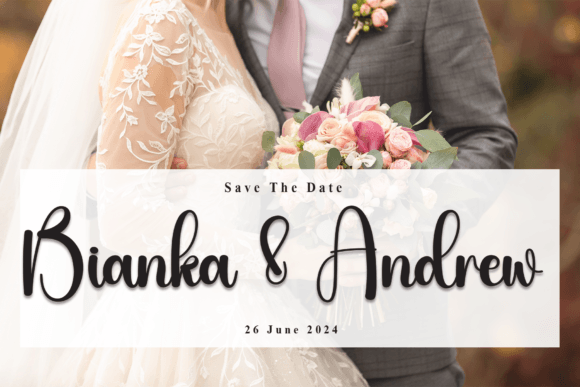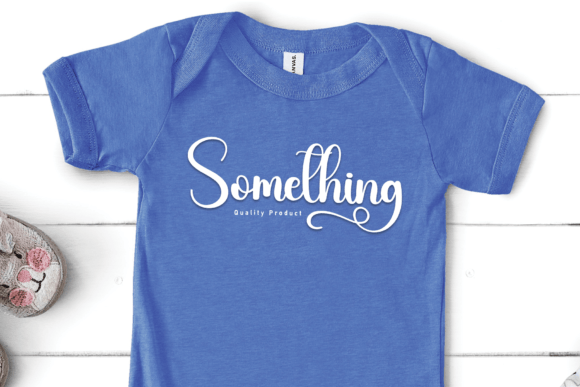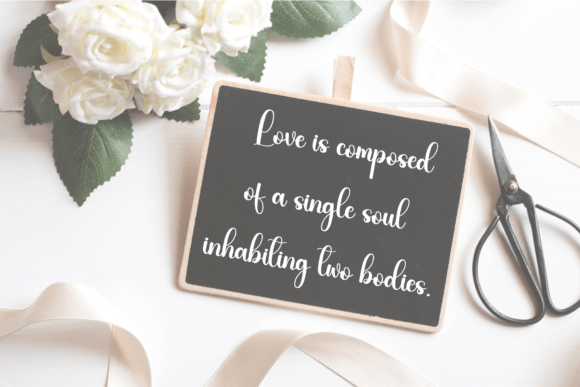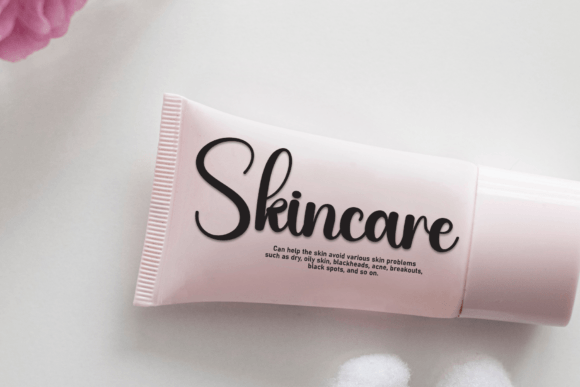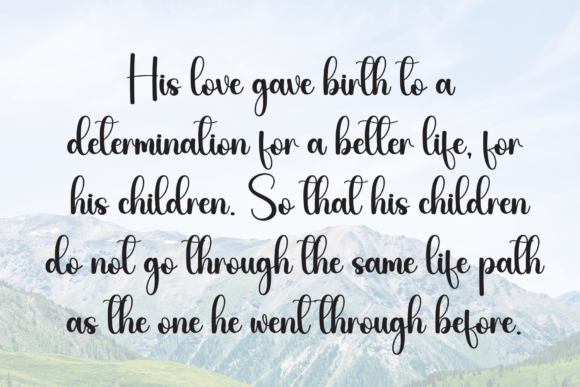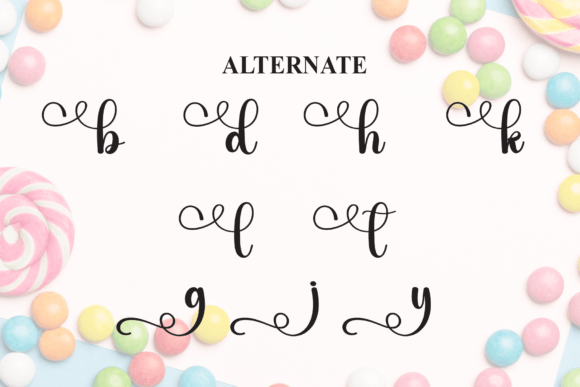
The Sweetest Addition to Your Designs
Have you ever found yourself pouring over a blank canvas, searching for the perfect font to bring your design to life? It’s a moment we’ve all experienced – the excitement of creating something new, the pressure of making it perfect, and the joy of finally finding that elusive spark. For designers, it’s this spark that sets our work apart, and for many of us, it’s the perfect font that makes all the difference.
Enter the Candy Font, a sweet and cursive handwritten font that’s sure to add a touch of magic to your designs. With its gentle curves and playful charm, the Candy Font is perfect for adding a romantic and joyful touch to your projects. Whether you’re designing a wedding invitation, a baby shower card, or a whimsical children’s book, the Candy Font is the perfect addition to your toolkit.
Candy Font Key Features
- Font Style: Candy Font is a playful, cursive font with a whimsical touch, ideal for adding a touch of sweetness to designs.
- Unique Characteristics: The font features a unique, hand-drawn style with intricate details and flourishes, setting it apart from other cursive fonts.
Candy Font Review
I recently had the chance to work with the Candy Font, and I must say it’s a mixed bag. ✨ Here are some things that work well:
- The font is playful and fun, making it perfect for creative projects or designs that need a touch of whimsy.
- Candy Font comes in a variety of styles, from bold and bright to pastel and subtle, giving you plenty of options to choose from.
- The font is highly customizable, allowing you to adjust the size, color, and even the spacing between letters to fit your design needs.
However, there are some limitations to consider ⚠️:
- The font may not be suitable for professional or formal designs, as it can come across as too playful or juvenile.
- Some users may find the font difficult to read at smaller sizes or in certain contexts.
- The font’s customization options can be overwhelming, especially for beginners or those with limited design experience.
Overall, I think Candy Font is a great option for designers who want to add a touch of fun and personality to their projects. While it may not be suitable for every design task, it’s definitely worth considering for the right project. With a little practice and experimentation, you can unlock the full potential of this versatile and engaging font.
Tips for Getting the Most Out of Candy Font
To get the most out of Candy Font, use it for:
- Celebratory designs, such as birthday invitations and party decorations.
- Children’s content, such as kids’ books and educational materials.
- Food-related designs, such as candy packaging and dessert menus.
Experiment with different text sizes, colors, and arrangements to create a unique and eye-catching design.